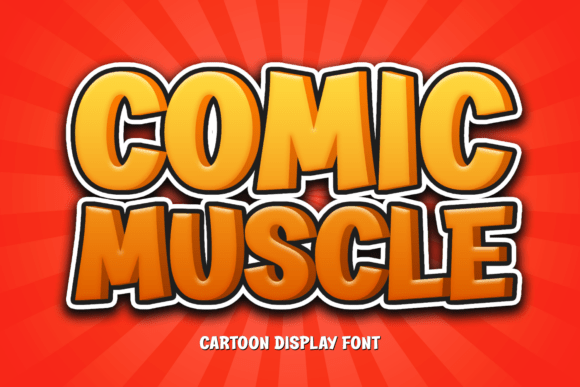
The Perfect Blend of Whimsy and Character: Comic Muscle Font
Who hasn’t experienced that magical moment when a font suddenly sparks an idea, and your creative juices start flowing? It’s as if the perfect tool has finally fallen into your hands, and the possibilities are endless. For designers seeking to infuse their work with a dash of playfulness and charm, the Comic Muscle Font is a game-changer.
This quirky and bold display font is tailor-made for cartoon-related designs, children’s games, and any project that requires a touch of whimsy. Its unique character makes it an invaluable asset for designers looking to add a personal touch to their creations. With the Comic Muscle Font, you can breathe life into your designs and make them truly unforgettable.
Comic Muscle Font Key Features
- Font Style: Comic Sans-like font with bold, rounded edges and a playful feel.
- Unique Characteristic: Features a distinctive “muscle” or “bulge” on the letter “C” and other characters, giving it a dynamic feel.
Comic Muscle Font Review
I recently had the chance to work with the Comic Muscle Font, and I must say it’s a font that’s full of energy and playfulness. ✨ The font’s bold and colorful aesthetic makes it perfect for comic books, cartoons, and other graphic novels. The letters are rounded and chunky, giving them a fun and friendly feel.
- Fun and playful aesthetic that’s perfect for comic books and cartoons
- Includes a wide range of characters, including punctuation and symbols
- Works well in digital and print formats
However, there are a few limitations to consider. ⚠️ For one, the font may not be suitable for formal or professional projects, as it can come across as too playful or immature. Additionally, the font may not be as versatile as some other fonts, as it’s primarily designed for comic books and cartoons.
Overall, I’d give the Comic Muscle Font 4 out of 5 stars. It’s a fun and unique font that’s perfect for certain projects, but may not be the best choice for others. With a bit of creativity and experimentation, however, it’s definitely worth considering for your next design project.
Comic Muscle Font is ideal for creating playful, humorous, and energetic designs. Use it for:
- Comic strips and graphic novels
- Social media graphics and memes
- Poster and flyer designs
Remember to experiment with different font sizes, colors, and styles to get the most out of Comic Muscle Font.
Design Projects Using Comic Muscle Font
Project 1: Comic Book Cover Design
Create a cover for a fictional comic book using Comic Muscle Font. This font’s energetic and playful feel is perfect for capturing the attention of comic book enthusiasts.